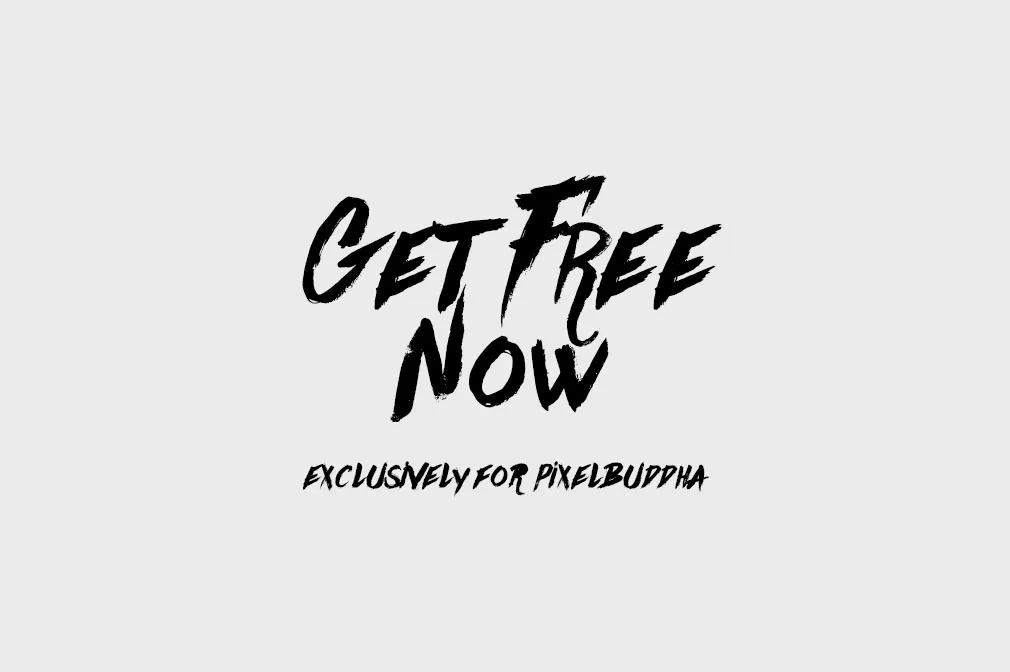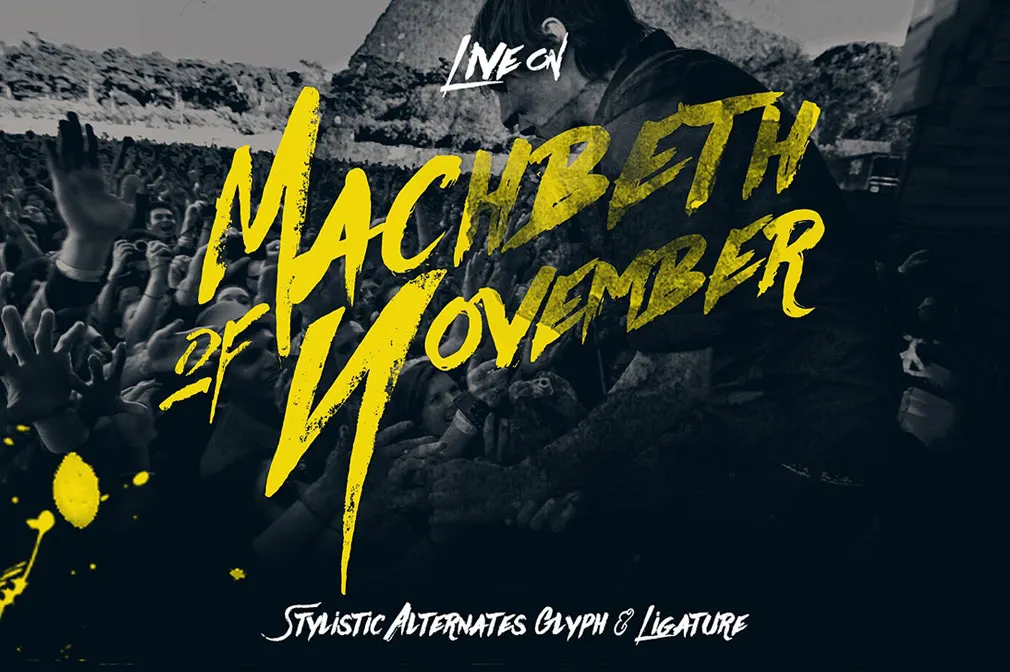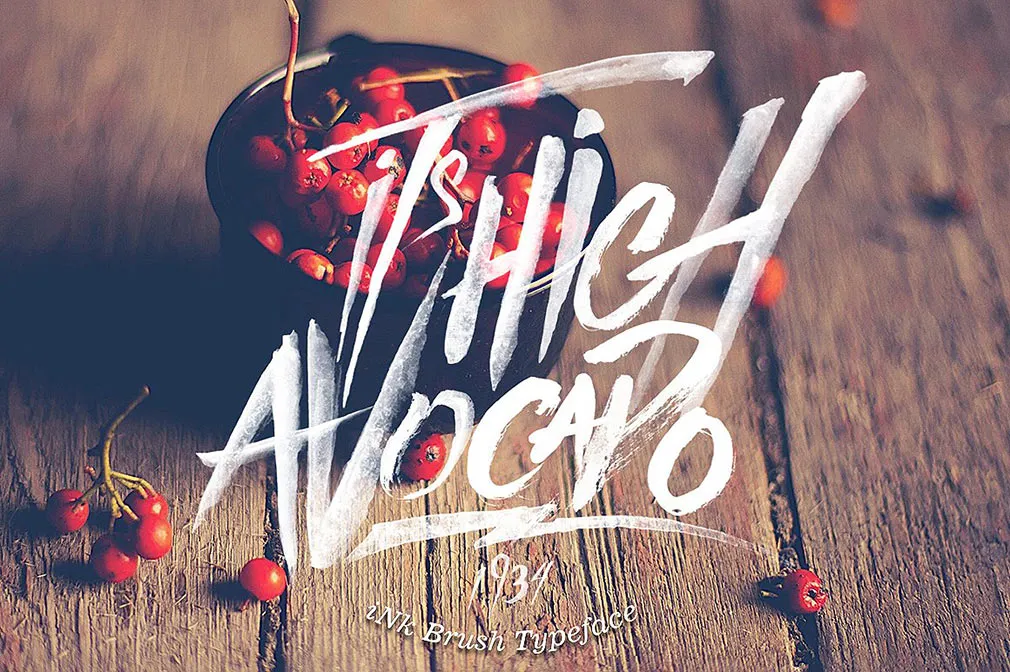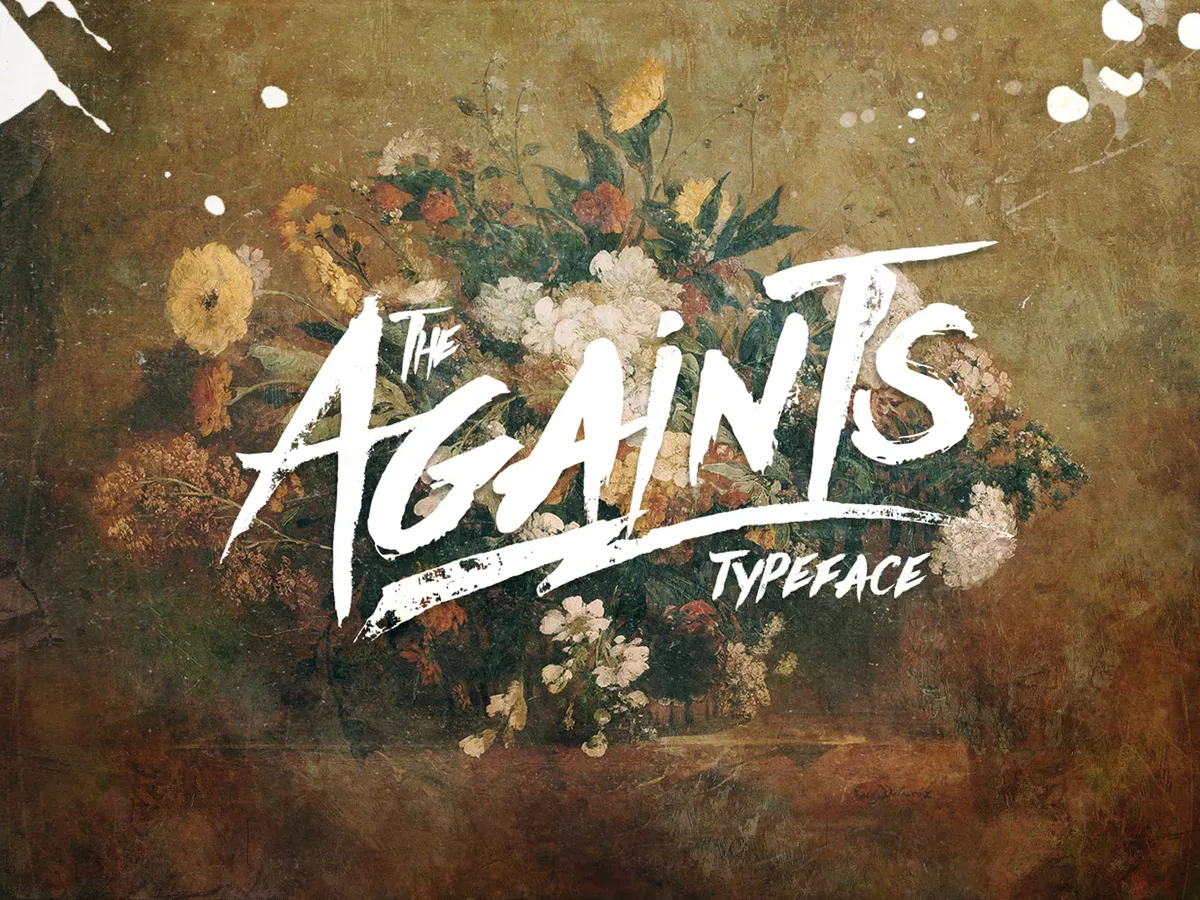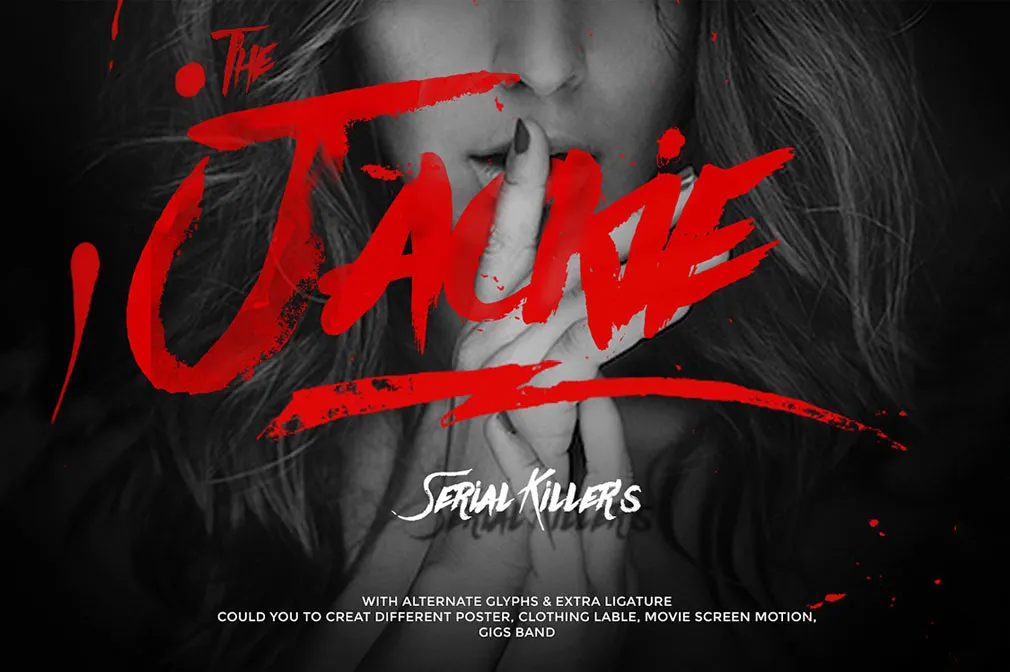
Againts Typeface
Meet Againts, a decorative font inspired by ink & tints hand-drawn brush! Make a beautiful creative mess using alternate glyphs and extra ligatures for your unrepeatable headline.
Every curl and shade is a somewhat expressive design rampage: disguised on purpose lines correlate with the any chosen font color and voila the greatness is born! Applying this typeface to your logos, web-projects, and collages will definitely be the right move!